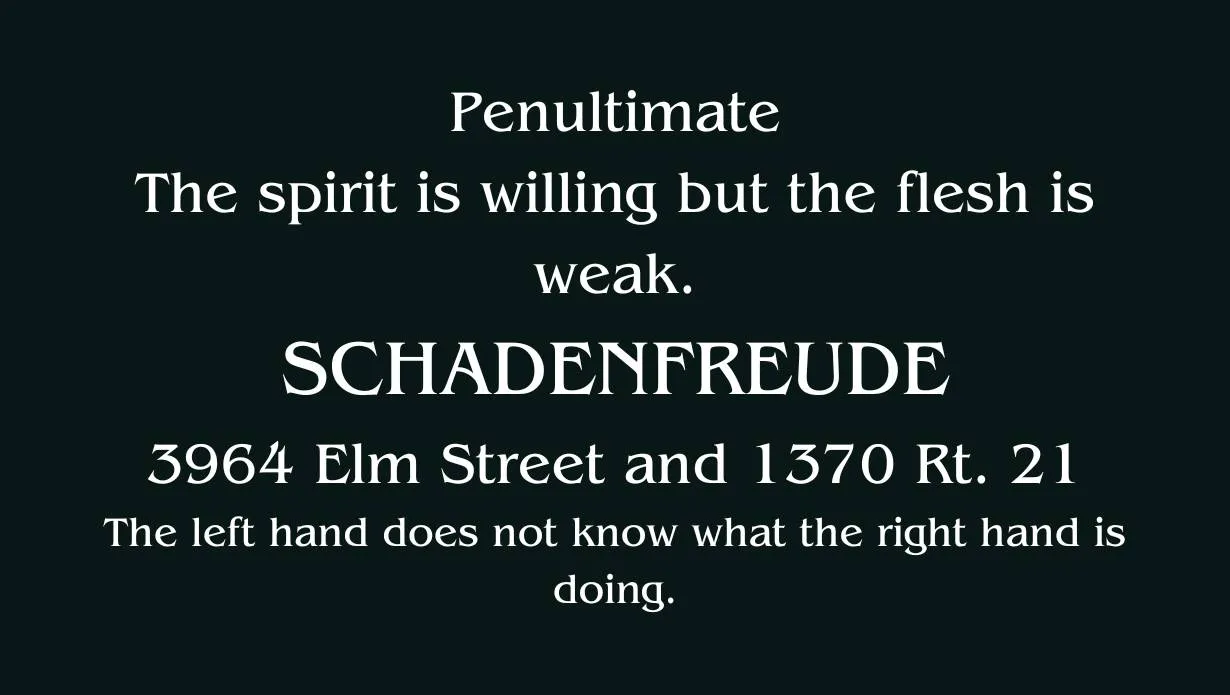
Next, let’s explore the elegant and expressive world of ITC Benguiat, a font designed by Ed Benguiat. Falling into the serif and display fonts category, ITC Benguiat exudes a sense of sophistication and timeless charm.
This font is not only versatile but also iconic, having been widely used in various print and digital applications. The font family offers different weights, allowing designers to choose the right level of emphasis for their projects, whether it’s in a magazine layout or a book cover.
| Designer | Ed Benguiat |
| Style | Serif |